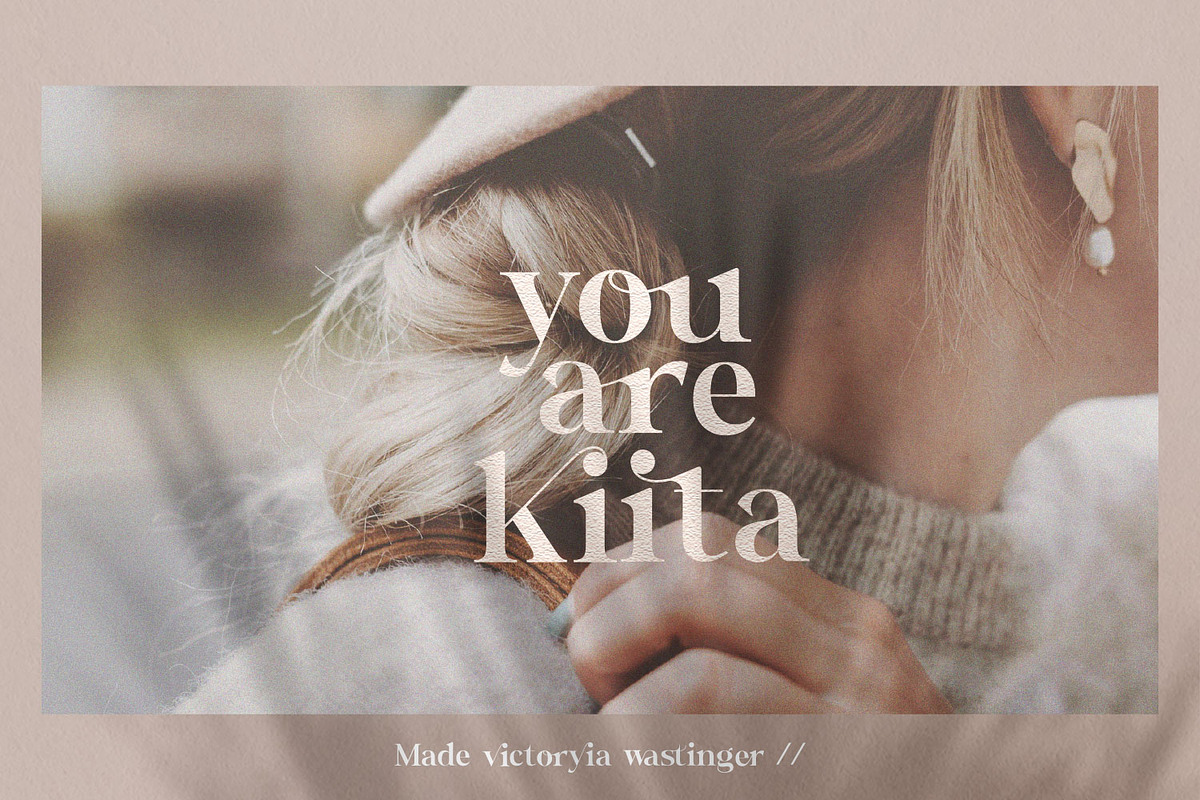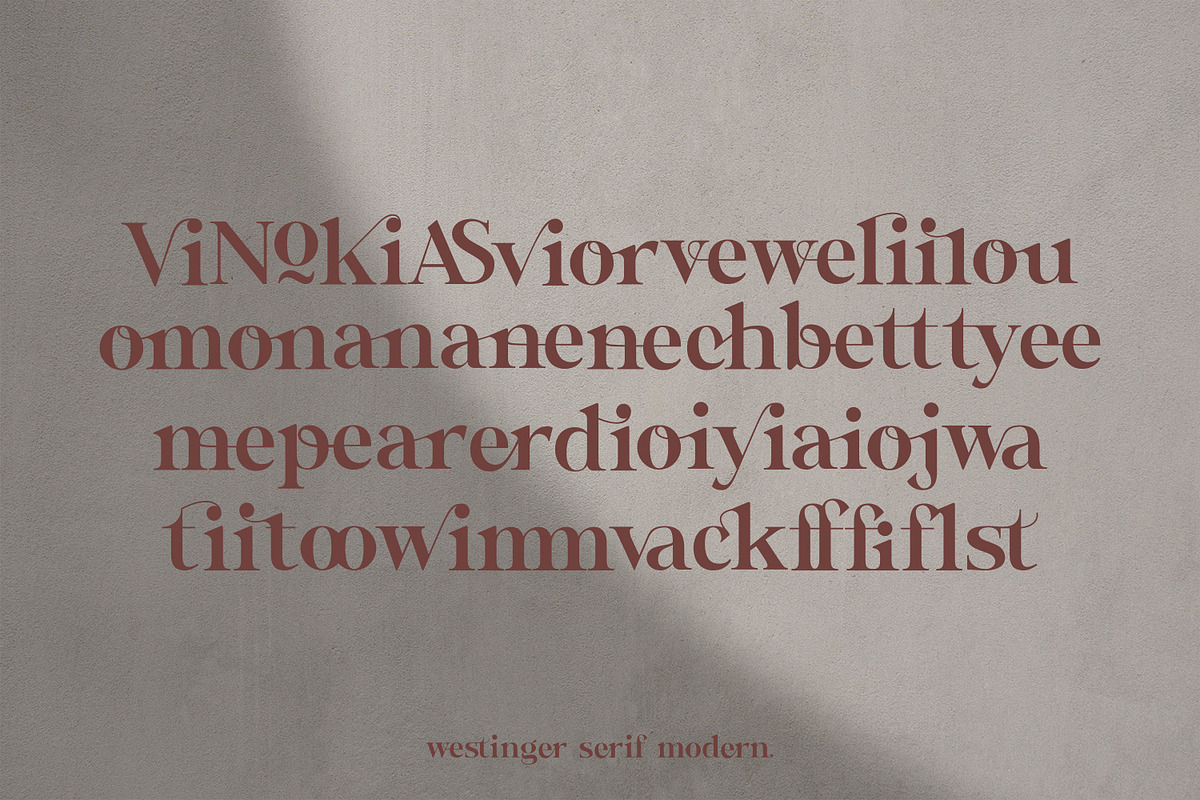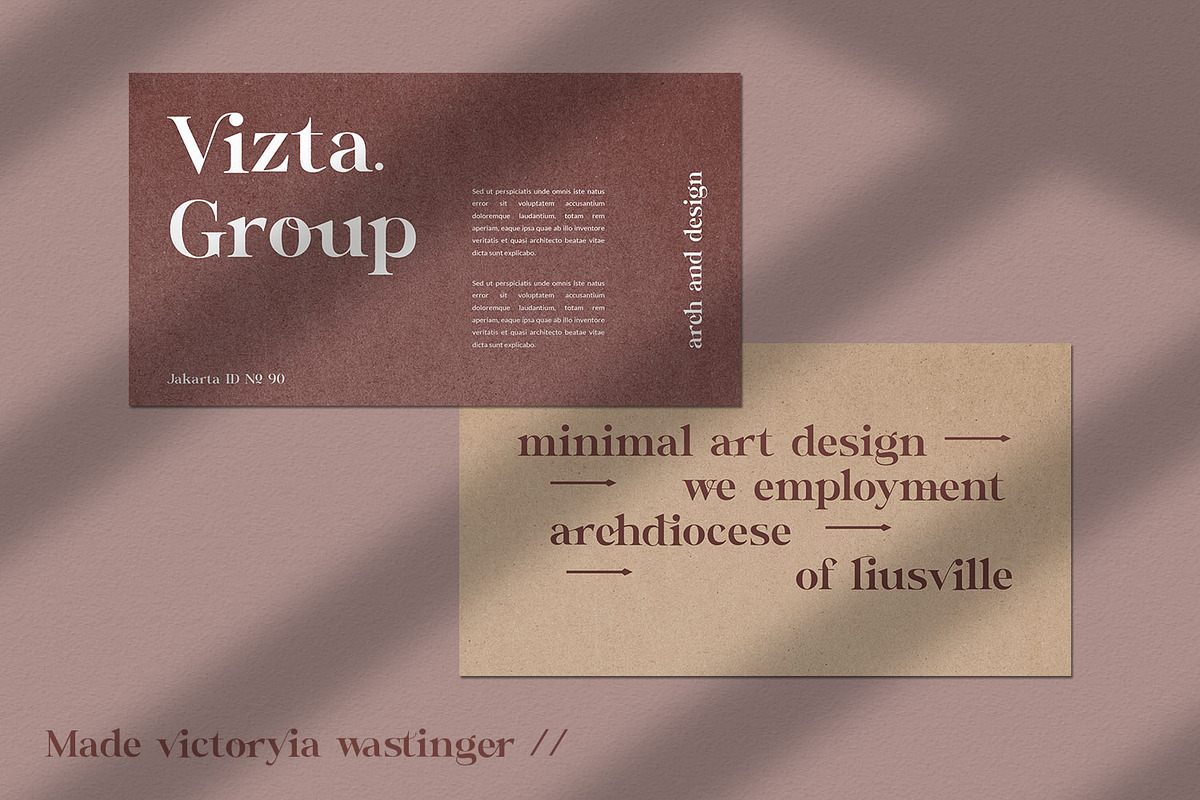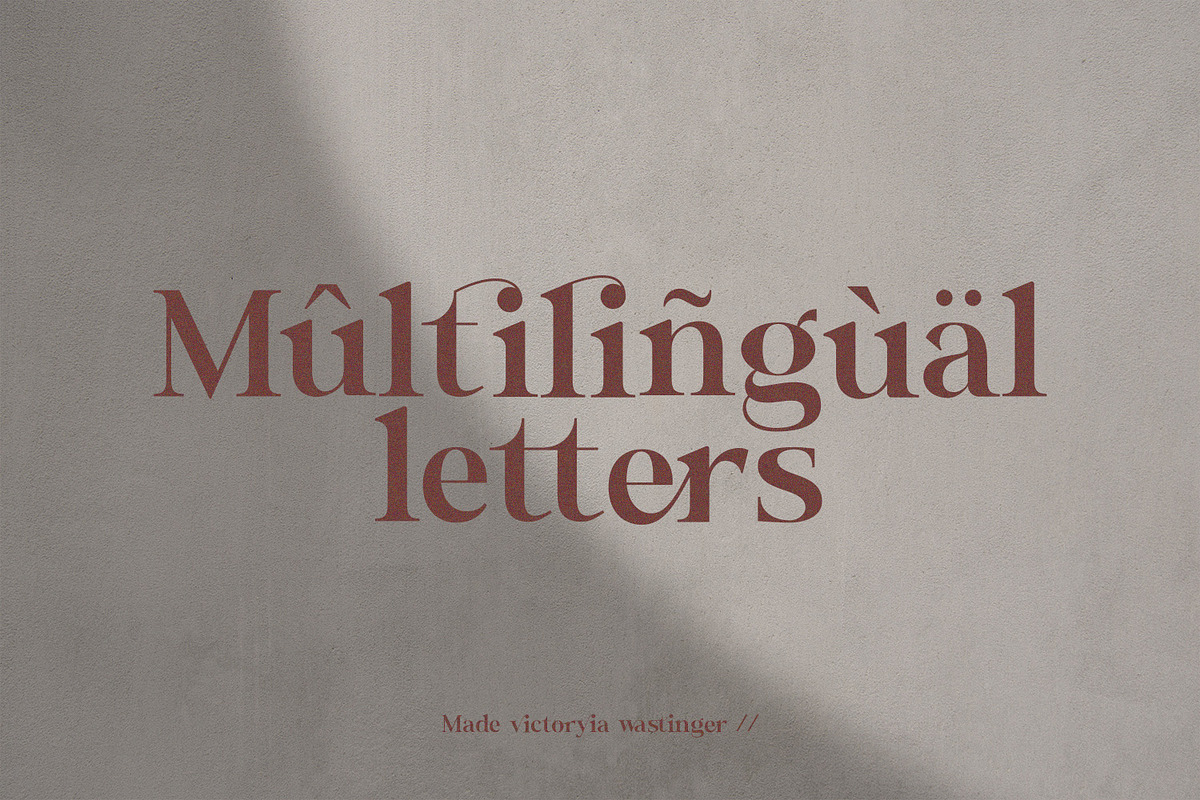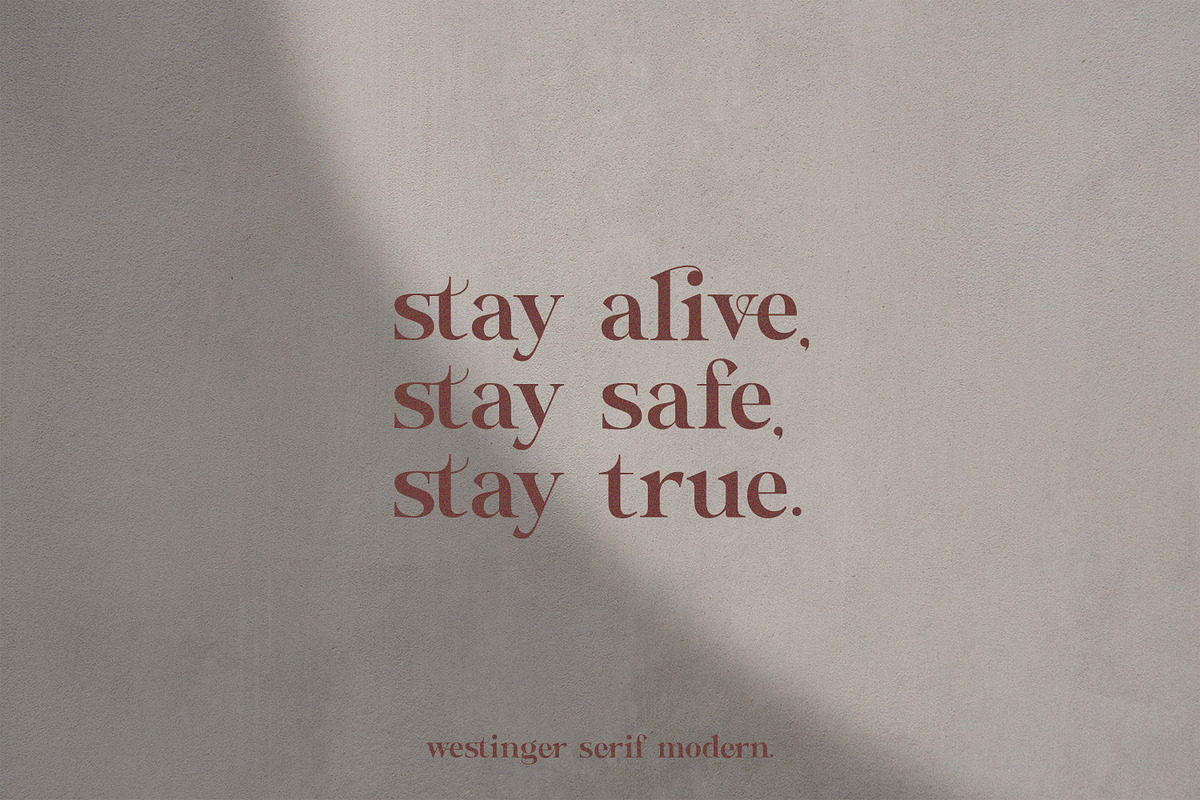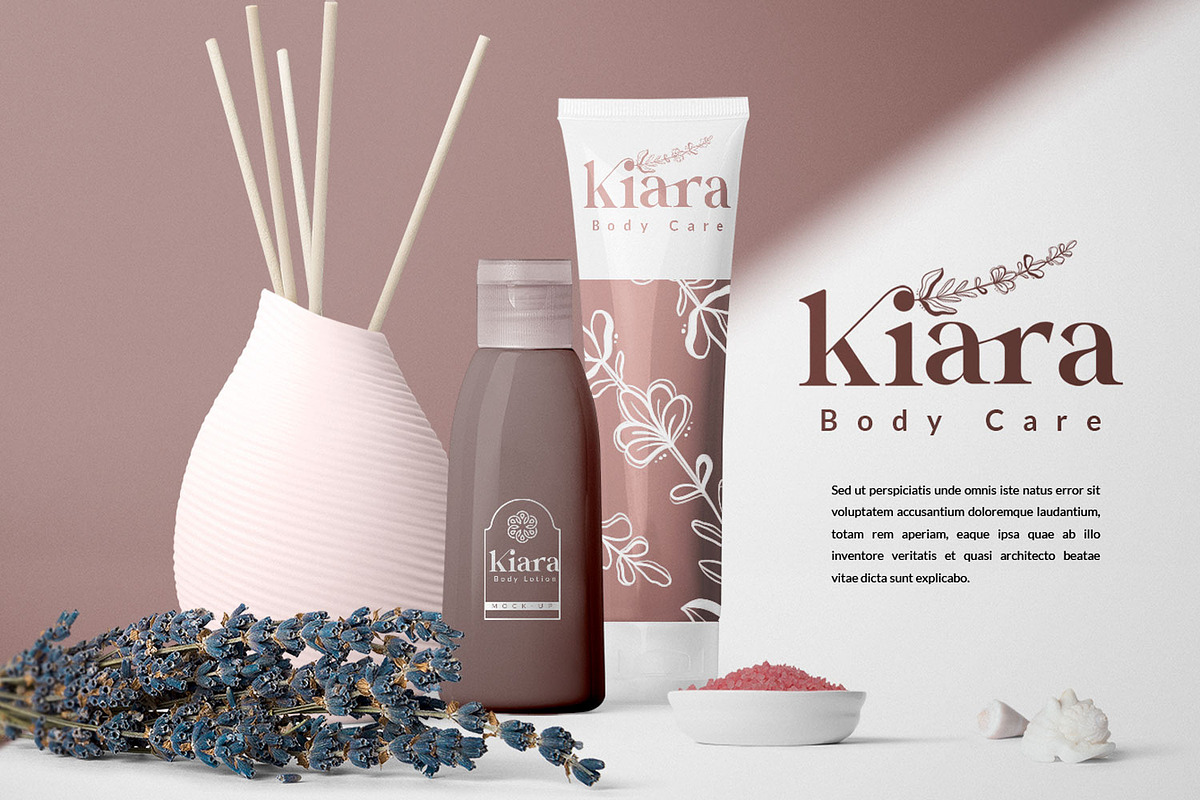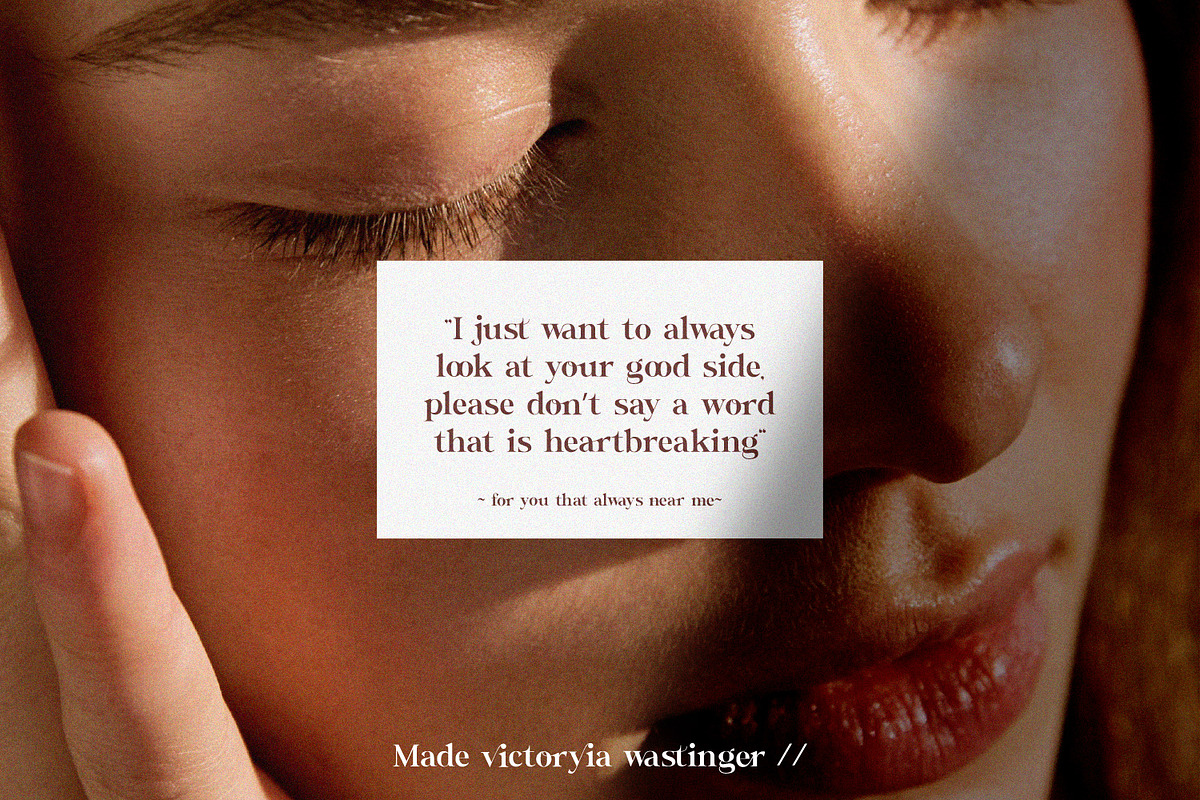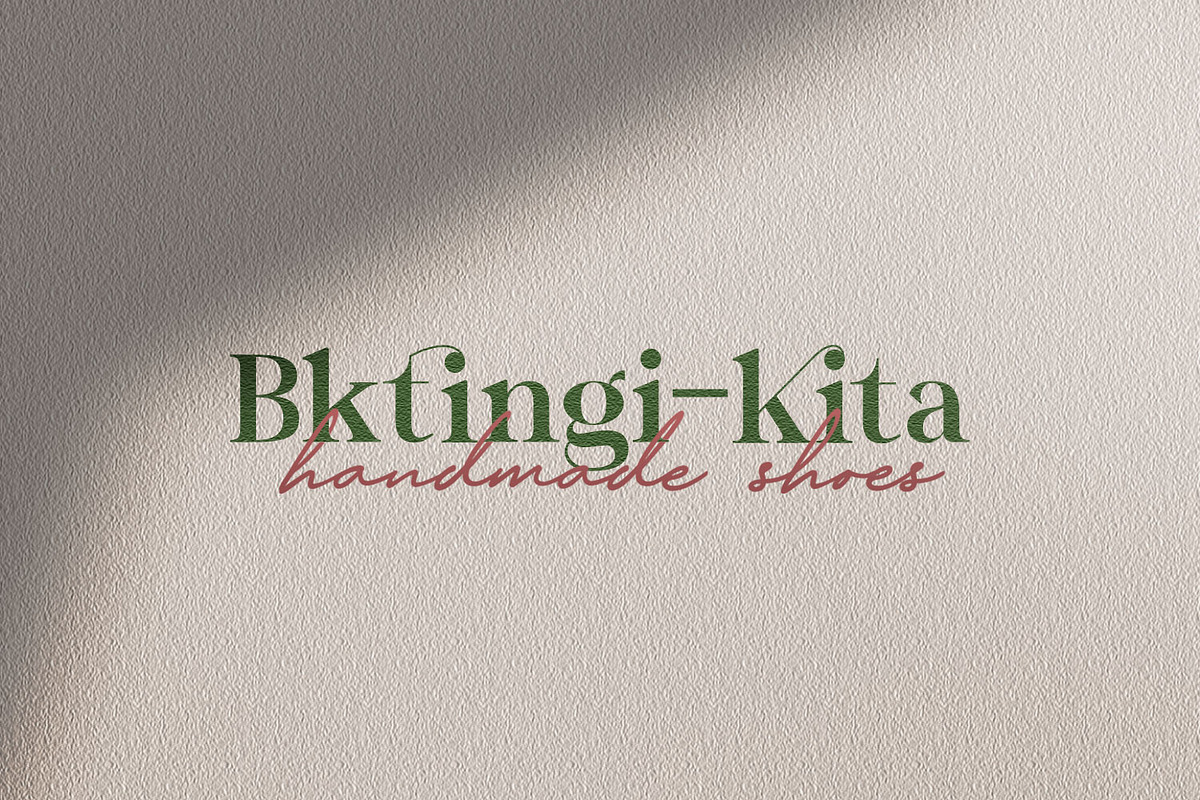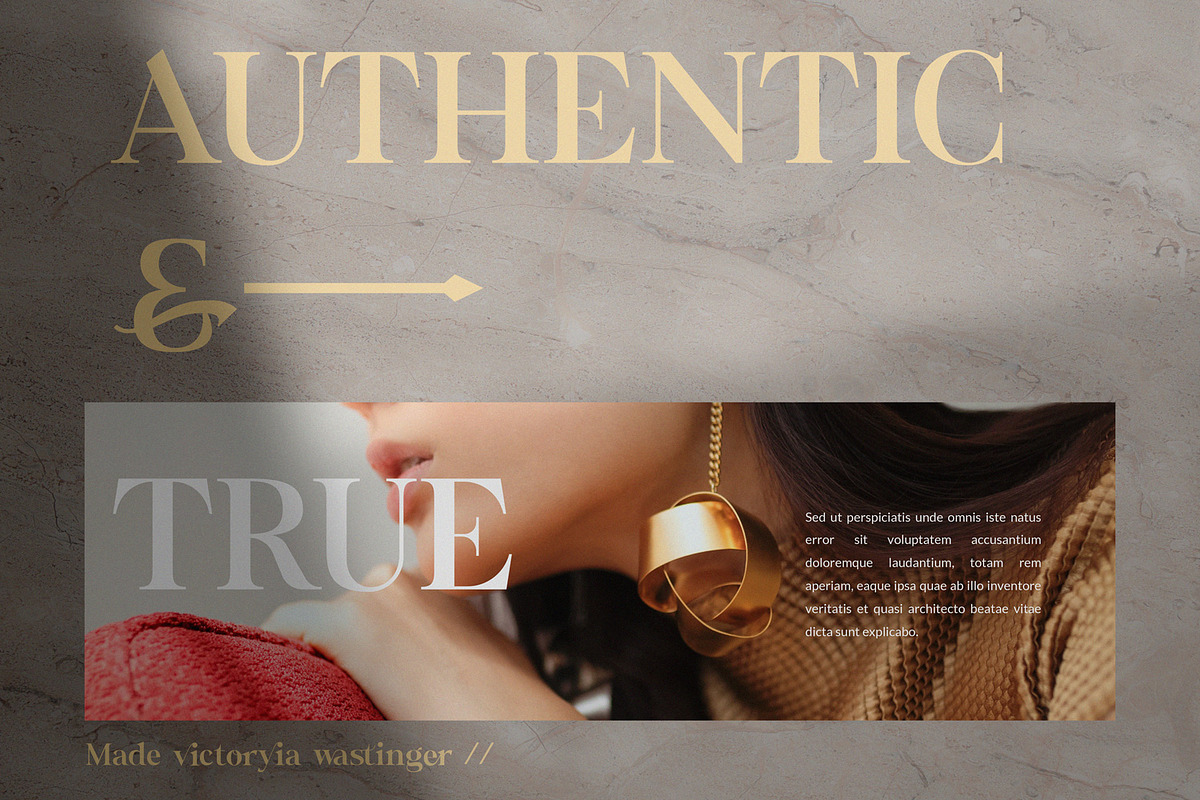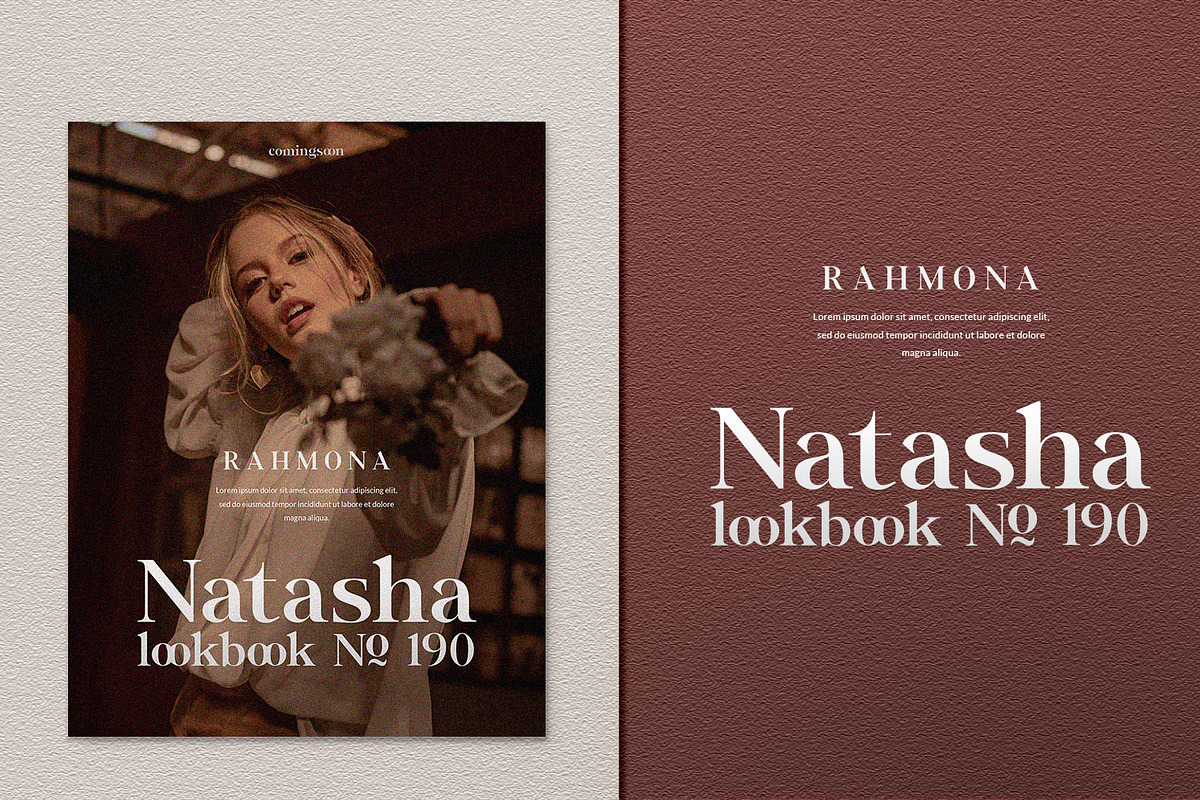
Wastinger Elegant Display
Wastinger Elegant Display is a serif font with alternatives, ligatures, and multilingual support. Perfect for editorial projects, Logo design, Clothing Branding, product packaging, magazine headers, or simply as a stylish text overlay to any background image.
- Stylistic Alternates & Ligatures
- Multilanguange